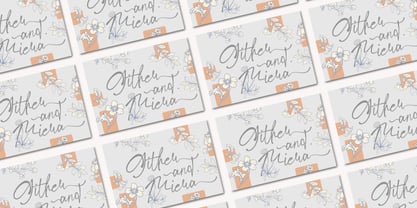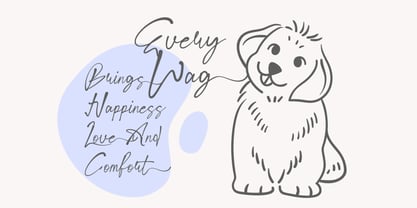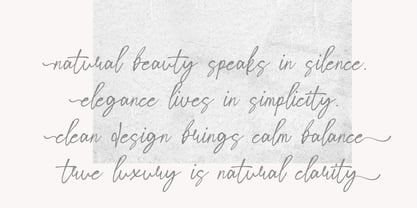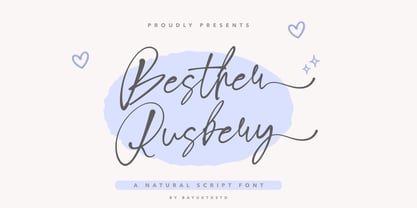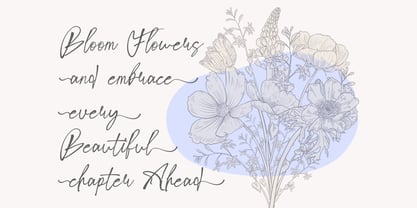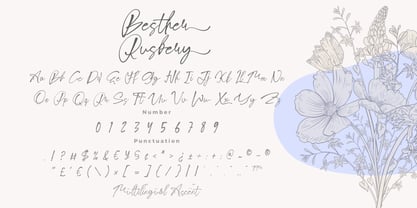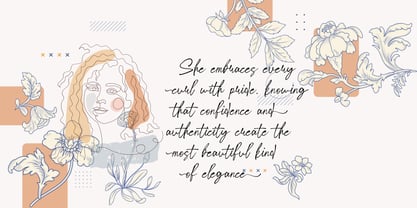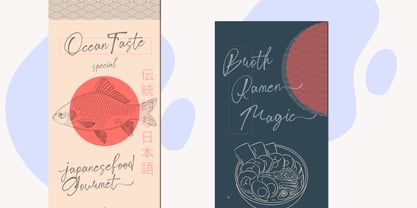
Besther Rusbery
Besther Rusbery – Natural Script Font
Besther Rusbery a Natural Script Font is a graceful and stylish handwritten typeface inspired by authentic penmanship, flowing calligraphy, and modern signature lettering. Featuring smooth curves, elegant swashes, and naturally connected strokes, this font creates a sophisticated and artistic visual impression.
Carefully crafted to capture the charm of genuine handwriting, Besther Rusbery combines fluid movement with balanced letterforms, resulting in a typeface that feels both elegant and highly readable. Its refined details and organic character shapes add warmth and personality to every design project.
Designed for versatility, Besther Rusbery delivers a timeless handwritten aesthetic suitable for both professional and creative applications. Whether used for branding, invitations, packaging, or digital content, it brings a luxurious and contemporary touch to your typography.
Key Features :
* Uppercase & Lowercase Characters
* Numerals & Punctuation
* Multilingual Support
* PUA Encoded & OpenType Features
* Elegant Script Style
* Natural Handwritten Appearance
* Smooth & Flowing Letterforms
* Stylish Signature Look
Suitable For :
* Branding & Logo Design
* Wedding Invitations
* Signature & Personal Branding
* Social Media Graphics
* Packaging & Product Labels
* Fashion & Beauty Projects
* Editorial & Typography Design
* Advertising & Marketing Materials
* Photography Watermarks
* Modern Creative Projects
With Besther Rusbery a Natural Script Font, your designs gain a refined, elegant, and contemporary handwritten style—perfect for creating memorable branding, sophisticated invitations, and visually captivating creative projects.